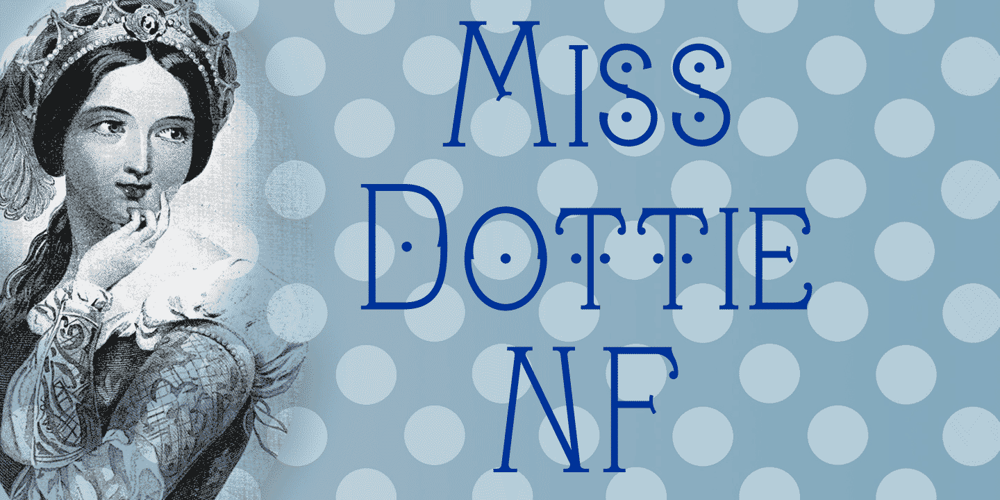
Miss Dottie NF Font Family was designed by Nick Curtis and published by Nick’s Fonts. Miss Dottie NF contains 1 styles and family package options. The 1897 specimen book from Barnhart Brothers and Spindler showed a enchanting little face called Dotted Roman. Here’s a faithful revival, ready to warm up the 21st century. Both versions support the Latin 1252, Central European 1250, Turkish 1254 and Baltic 1257 codepages.